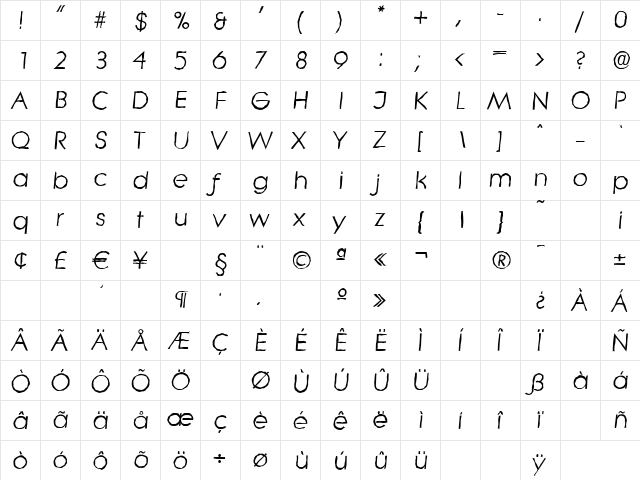
LiteraAntique Italic
Design Context for LiteraAntique Typeface
LiteraAntique wears its vintage influences proudly, with letterforms that recall mid-century signage, classic packaging, and nostalgia-driven design. The slanted form adds forward momentum and visual energy.
Perfect for vintage-inspired branding, retro packaging, nostalgia campaigns, and period-accurate editorial design.
Font Pairing: Combine LiteraAntique with a simple slab or neutral sans — period-accurate companions reinforce the vintage feel without competing for attention.
Pro Tip: Use LiteraAntique for headlines and pull quotes rather than body copy — its personality is best appreciated in short, focused bursts.